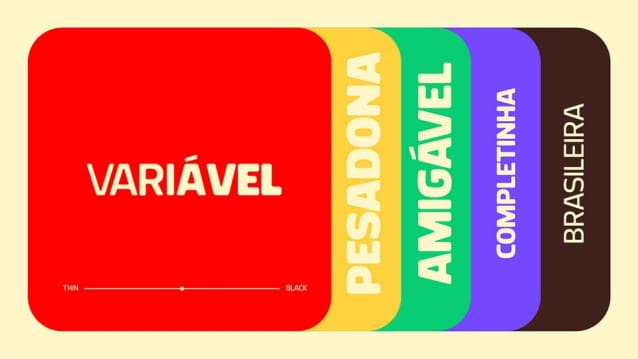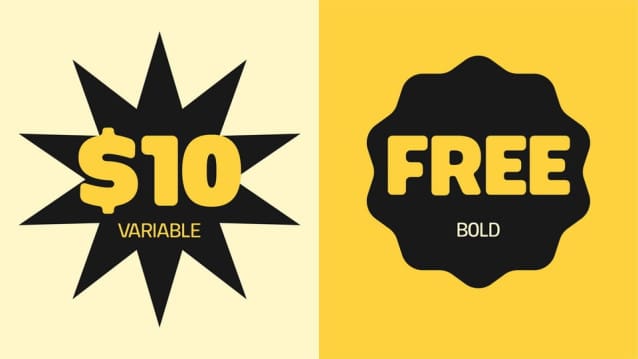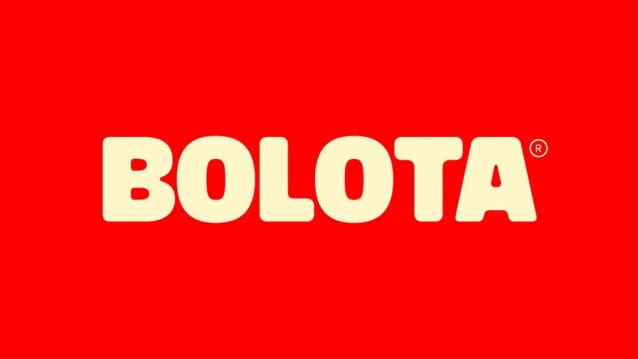
Bolota Font
Bolota Font is a variable display font, with rounded corners, perfect for enhancing and highlighting the most special titles. The font is crafted to exude warmth and sophistication, with soft curves and rounded edges that create a gentle and inviting aesthetic.
With its balanced proportions and subtle elegance, Bolota font adds a touch of refinement to any title or headline. Whether you’re designing invitations, branding materials, or editorial layouts, this font is perfect for creating a memorable and impactful impression.